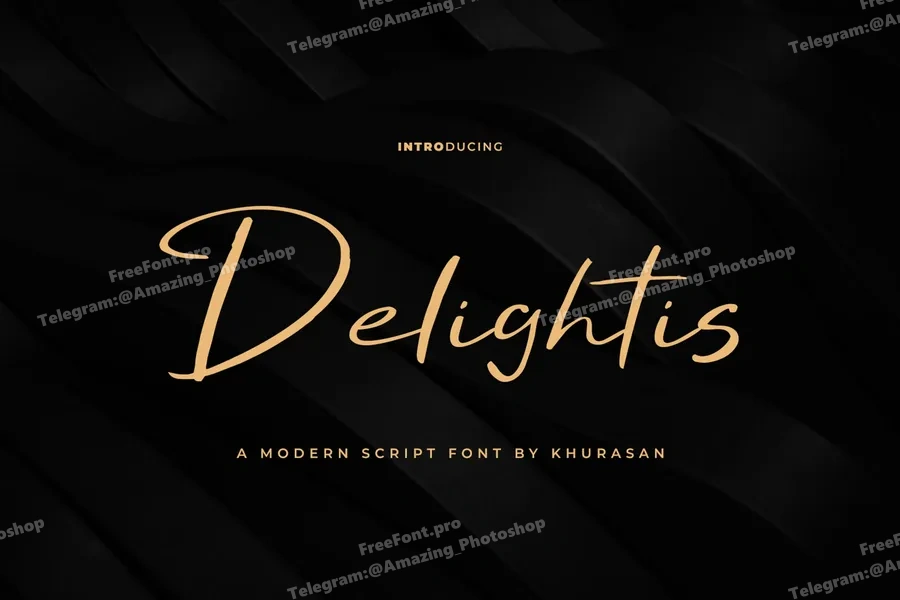
The Delightis is a good script font, elegant and modern feel character set. The Delightis font as well as multi-lingual support, uppercase, lowercase, numerals & punctuation.